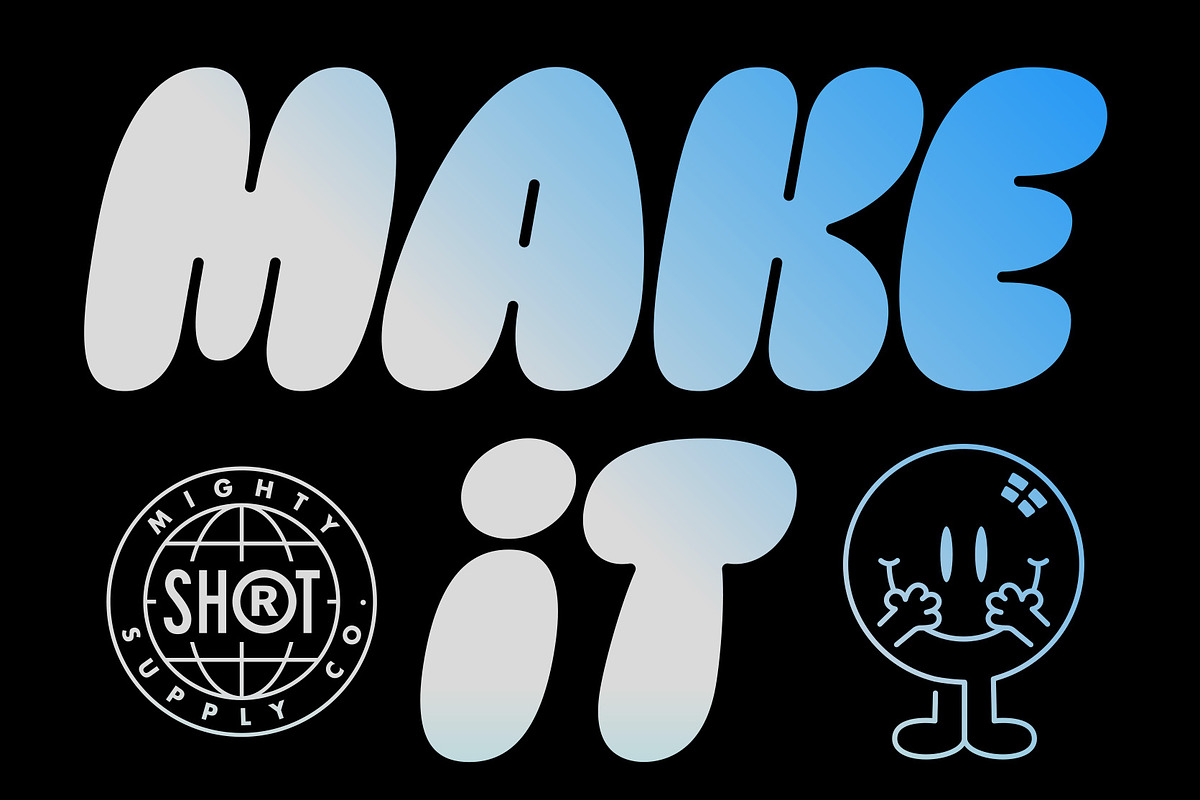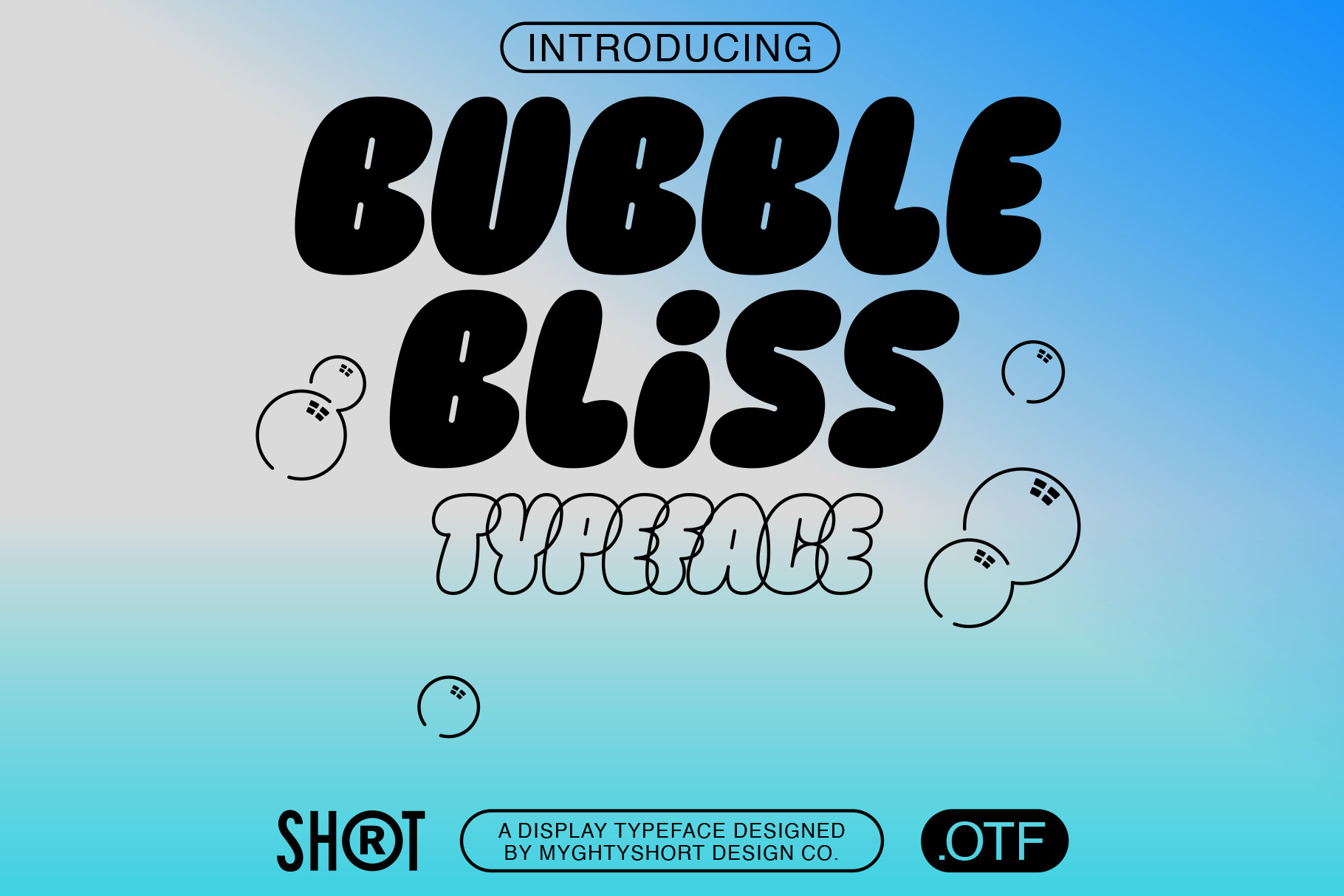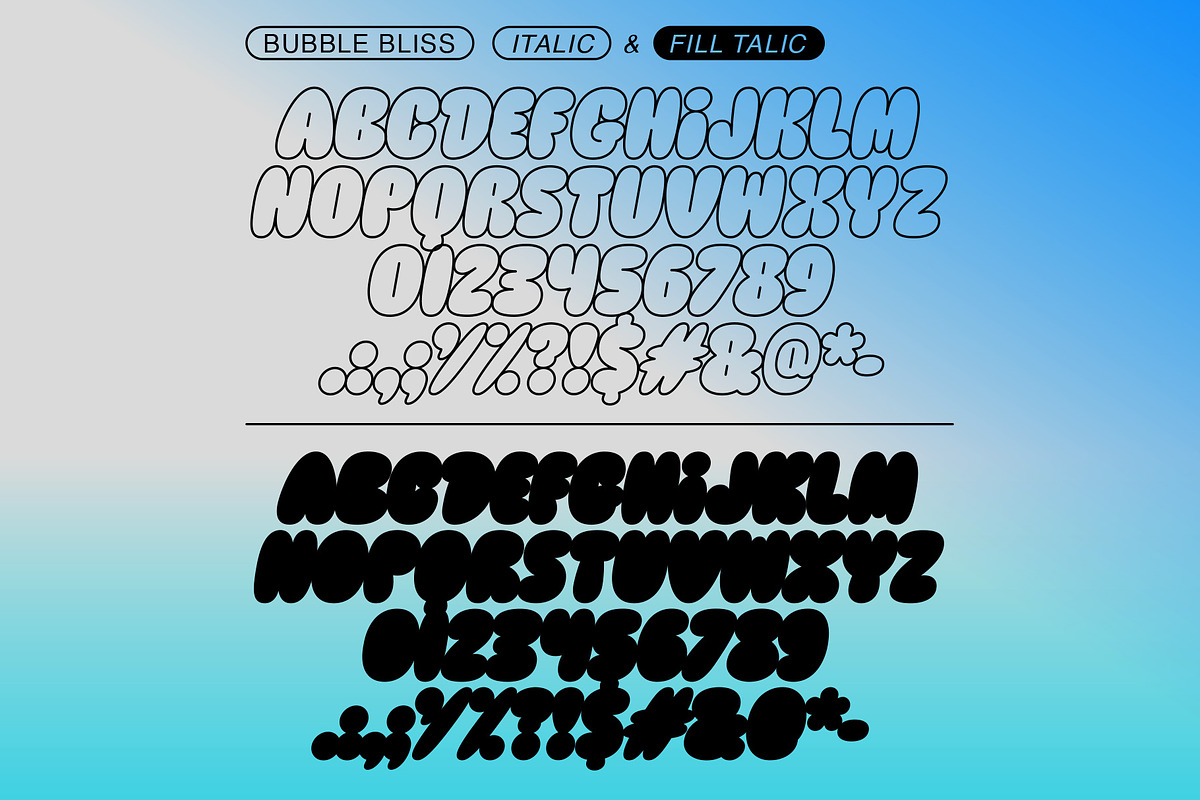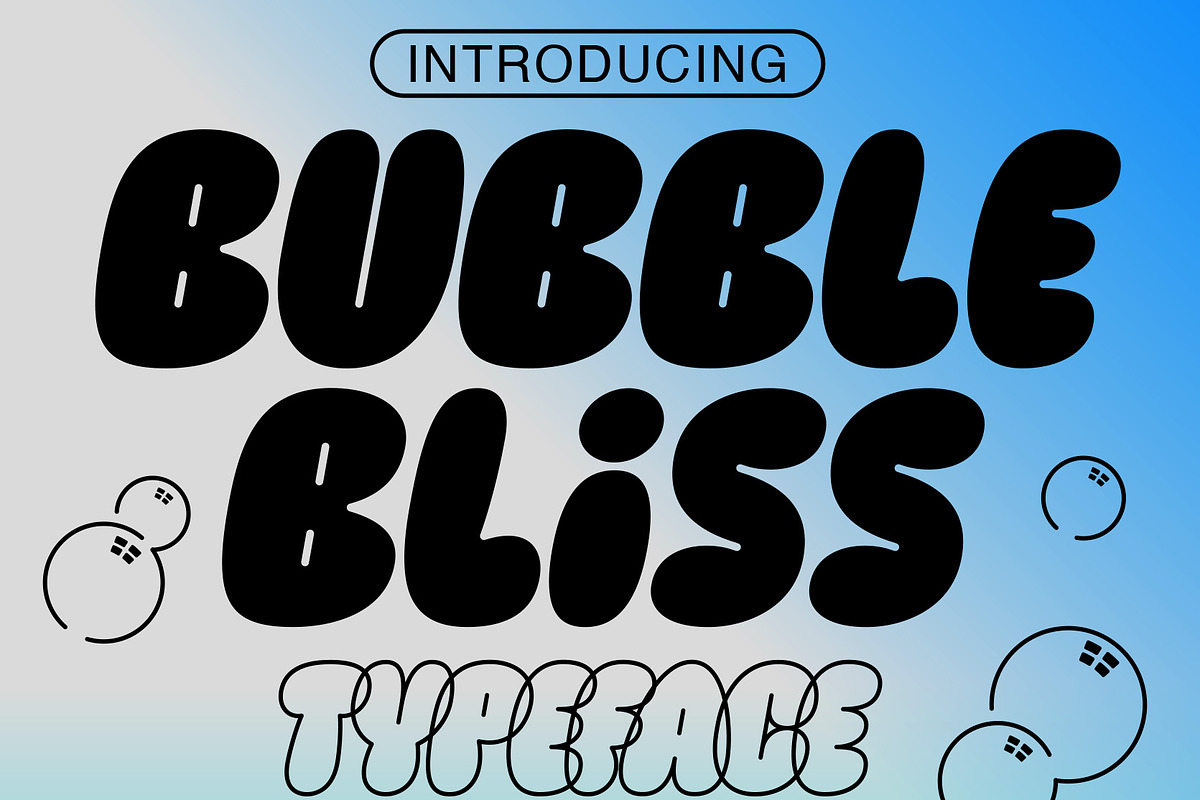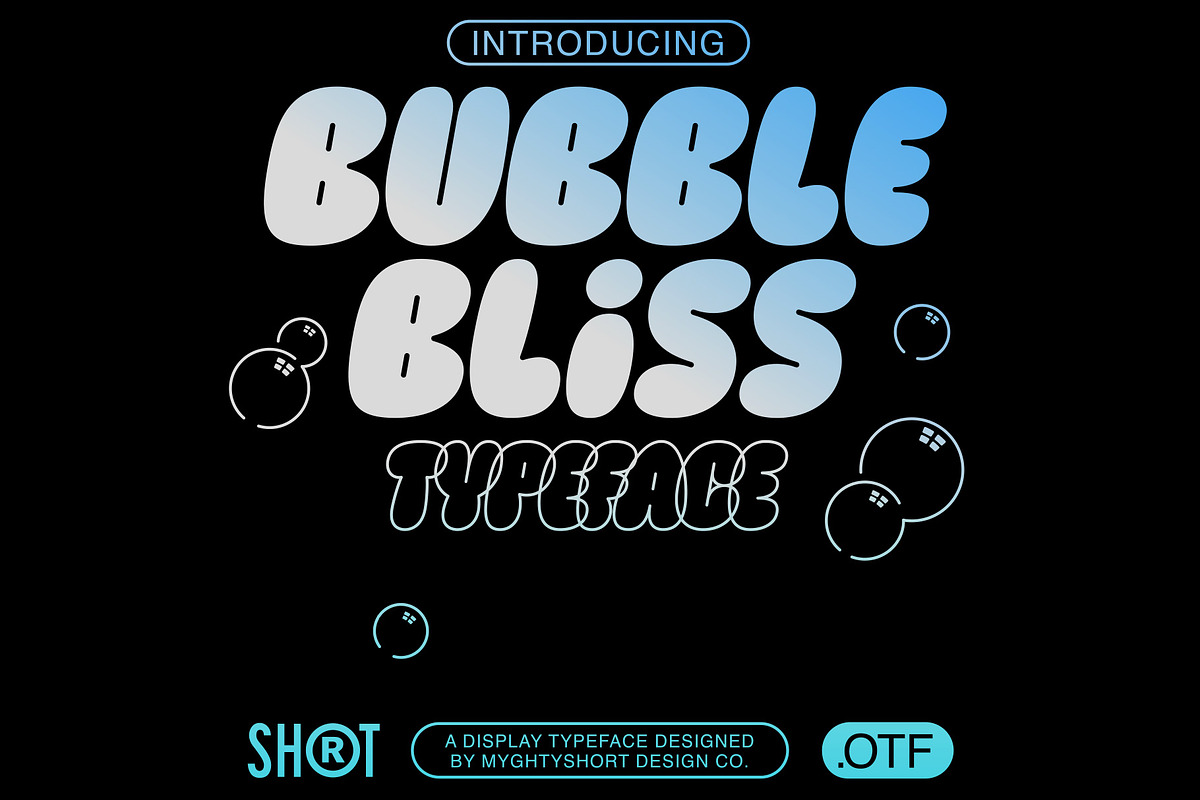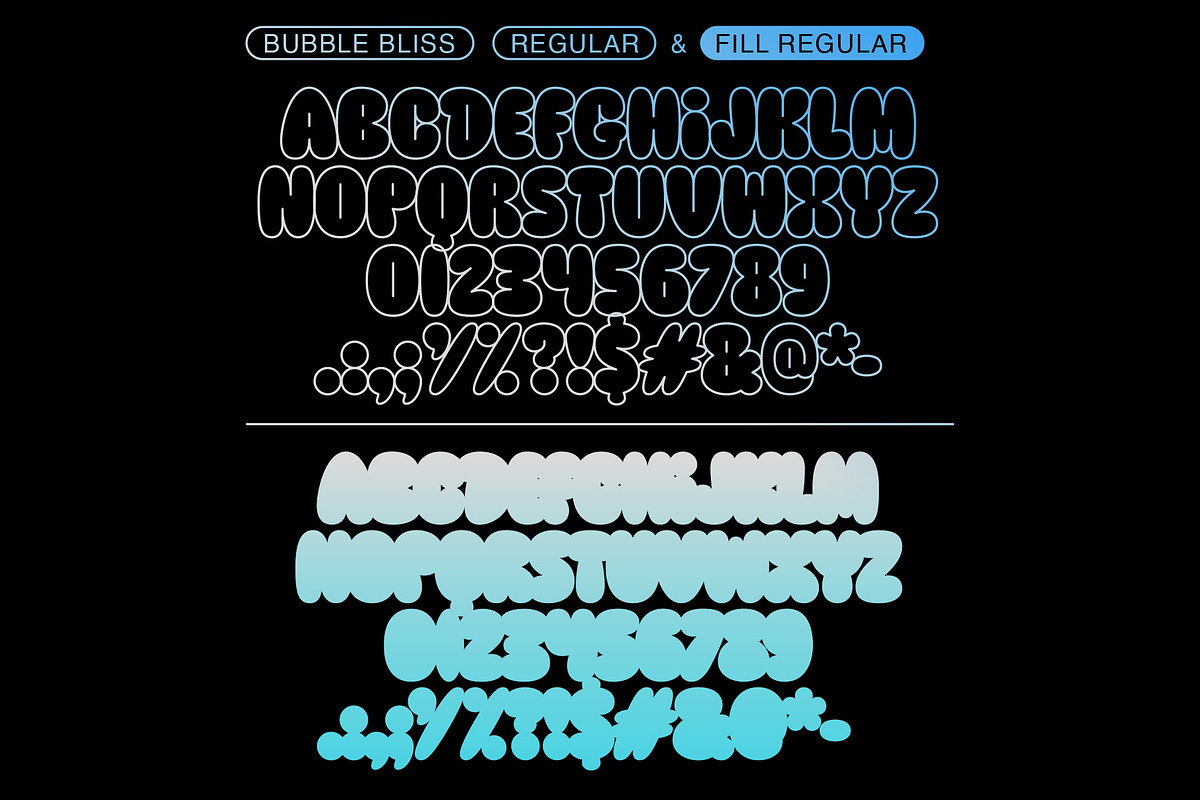
Bubble Bliss Typeface
“Bubble Bliss” is a whimsical and vibrant typeface that brings a playful touch to any project. Characterized by its round, bubbly letters, Bubble Bliss adds a cheerful and youthful flair to your designs. Perfect for eye-catching posters, fun social media graphics, and creative branding, this typeface makes a bold statement while maintaining a light-hearted tone. With four unique styles—Regular, Regular Fill, Italic, and Fill Italic—Bubble Bliss offers versatility and charm, making it an ideal choice for anyone looking to infuse their work with a burst of joy and creativity. Let's make it pop!